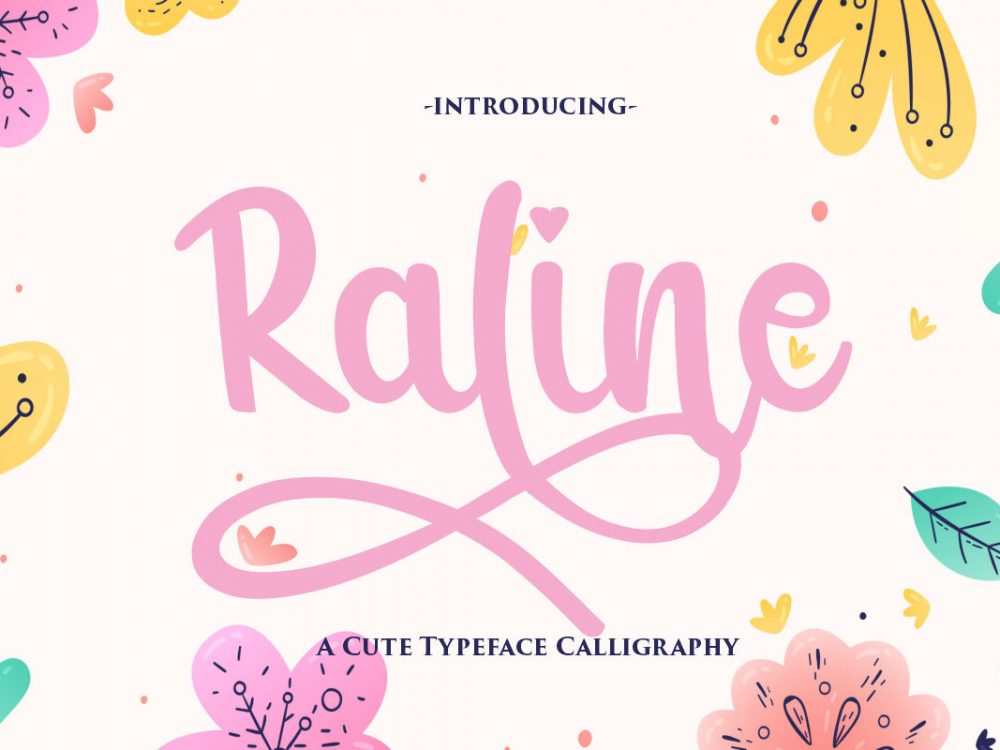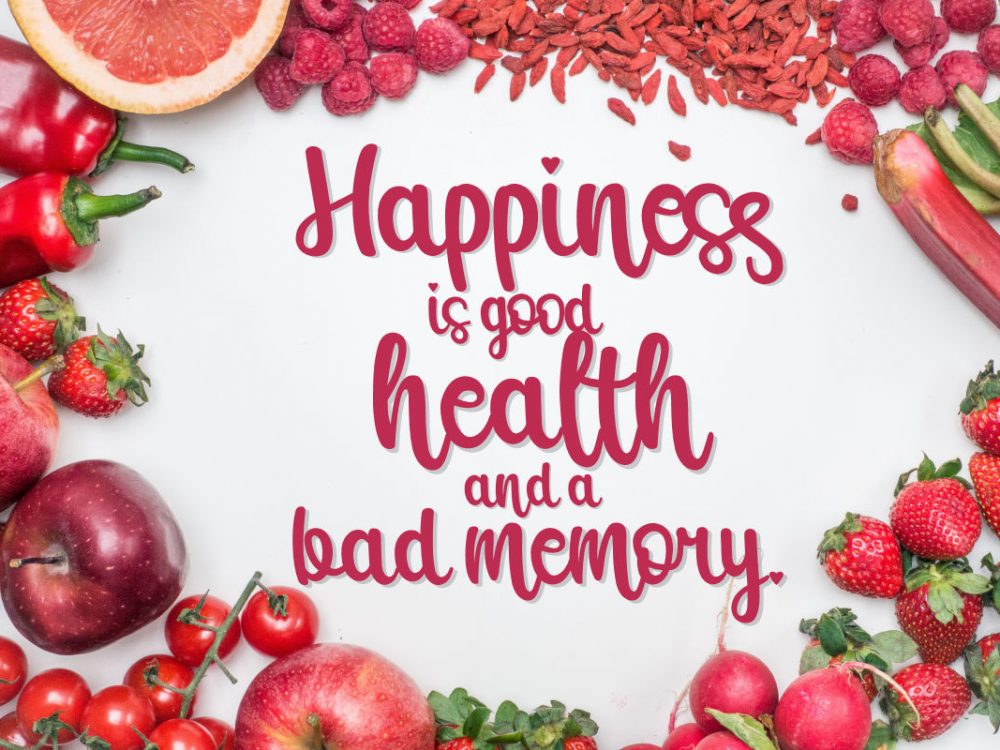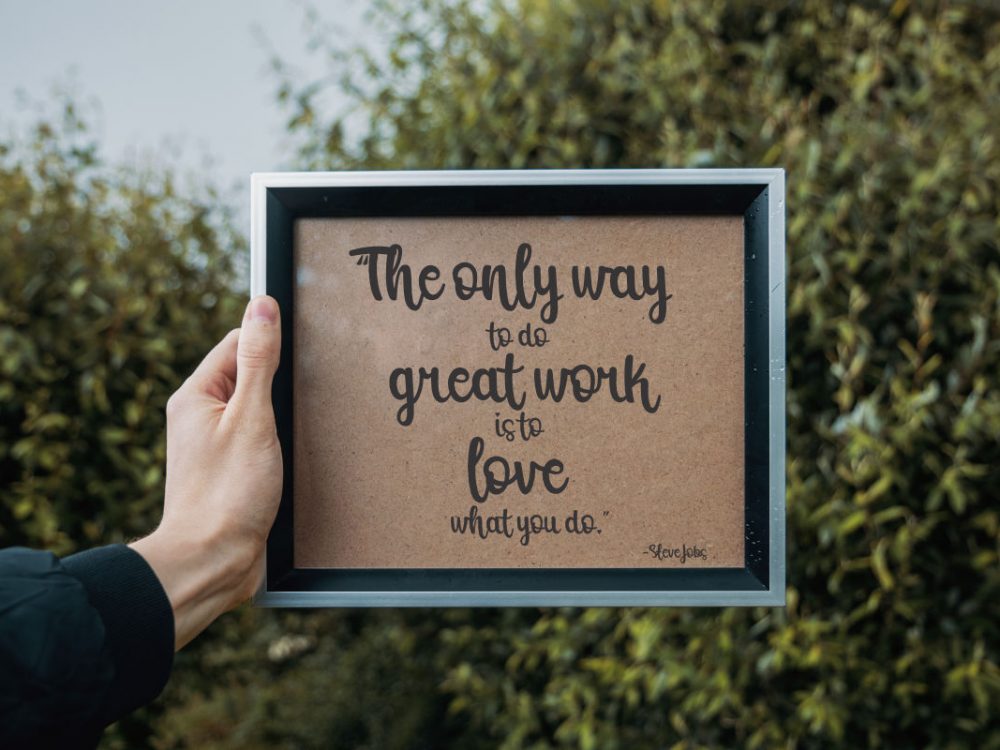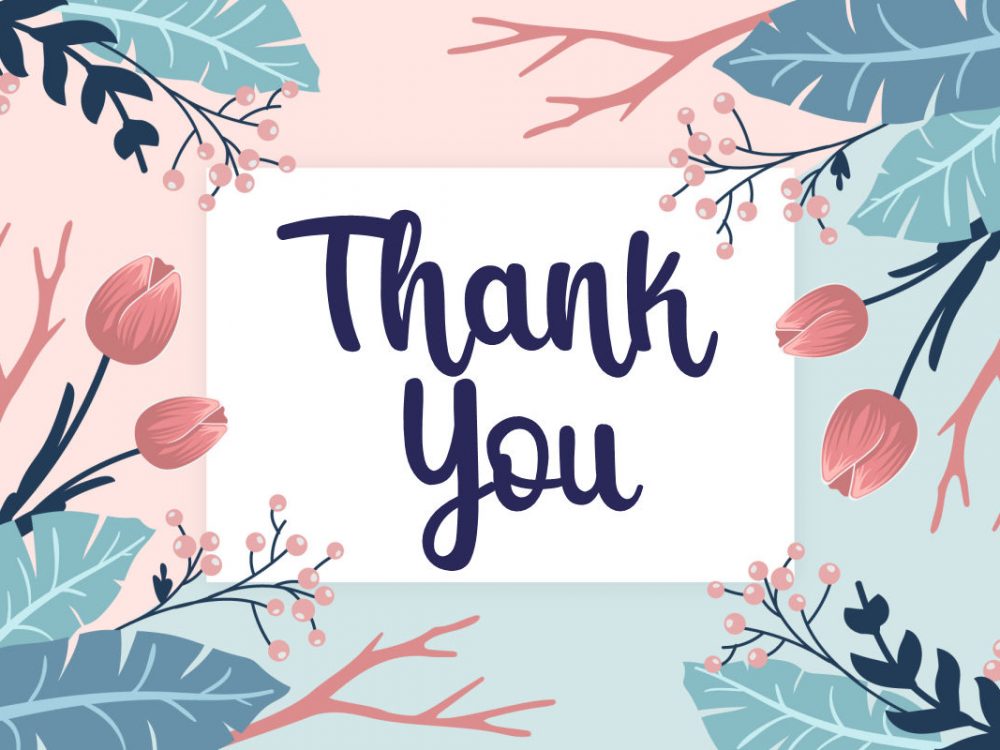
Raline Free Font
Raline Free Font is an interesting cute font with an interesting calligraphic style. This font is well suited for creating various design projects that require a scripted font. You can use this font to create memorable romantic posters, wedding invitations, cards, branding, flyers, and more. Improve the quality and increase the popularity of your design projects by using this font. If you like it don’t forget to check out the full version.